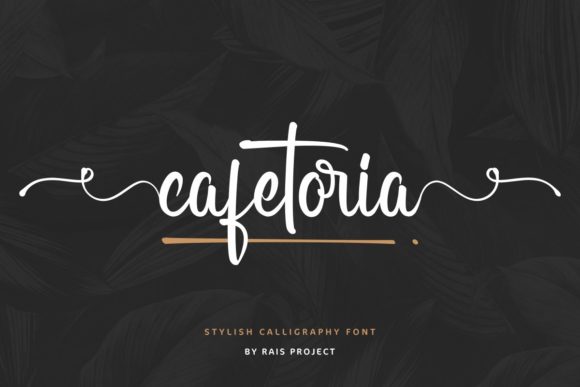
The Elegant Cafetoria Font: A Designer’s New Best Friend
I’ll never forget the time I was working on a project for a high-end client, and I just couldn’t seem to find the right font to match their luxurious brand aesthetic. I scoured the internet, tried out dozens of fonts, but nothing seemed quite right. That was until I stumbled upon the stunning Cafetoria font. With its elegant, handwritten flair, it was love at first sight! In this article, I’ll share my experience with Cafetoria, and explore how you can make the most of this gorgeous font in your own designs.
An Honest Review of Cafetoria
So, what makes Cafetoria so special? Let’s dive into the good stuff! 😊
- ✨ Elegant and sophisticated: Cafetoria is the perfect font for designers who want to add a touch of luxury to their projects.
- ✅ Highly versatile: Whether you’re working on a logo, a brochure, or a social media graphic, Cafetoria adapts seamlessly to any design.
- 💫 PUA encoded: With PUA encoding, you can access all the glyphs and swashes with ease, making it a breeze to customize your text.
Of course, no font is perfect, and Cafetoria does have a few minor quirks:
- 🤔 Limited use in very formal or corporate contexts: While Cafetoria is elegant, it’s still a handwritten font, and may not be suitable for very formal or corporate designs.
- ⚠️ May not work well at very small sizes: As with many script fonts, Cafetoria may lose some of its charm when scaled down to very small sizes.
A Practical Guide to Using Cafetoria
One of the best things about Cafetoria is its support for OpenType features and glyphs. With PUA encoding, you can access a wide range of swashes, ligatures, and stylistic alternates to customize your text. Here are some tips for making the most of these features:
- Use swashes to add a touch of elegance to your headings and titles.
- Experiment with ligatures to create a more fluid, connected look.
- Try out different stylistic alternates to add some personality to your text.
The Story Behind Cafetoria
Cafetoria was designed with one goal in mind: to create a font that’s both elegant and accessible. The designer, a typography enthusiast, was inspired by the classic script fonts of the past, but wanted to create something fresh and modern. The result is a font that’s perfect for designers who want to add a touch of luxury to their projects.
Q: Is Cafetoria suitable for body text?
A: While Cafetoria is a beautiful font, it’s still a script font, and may not be the best choice for long blocks of body text. However, it can work well for headings, titles, and other display text.